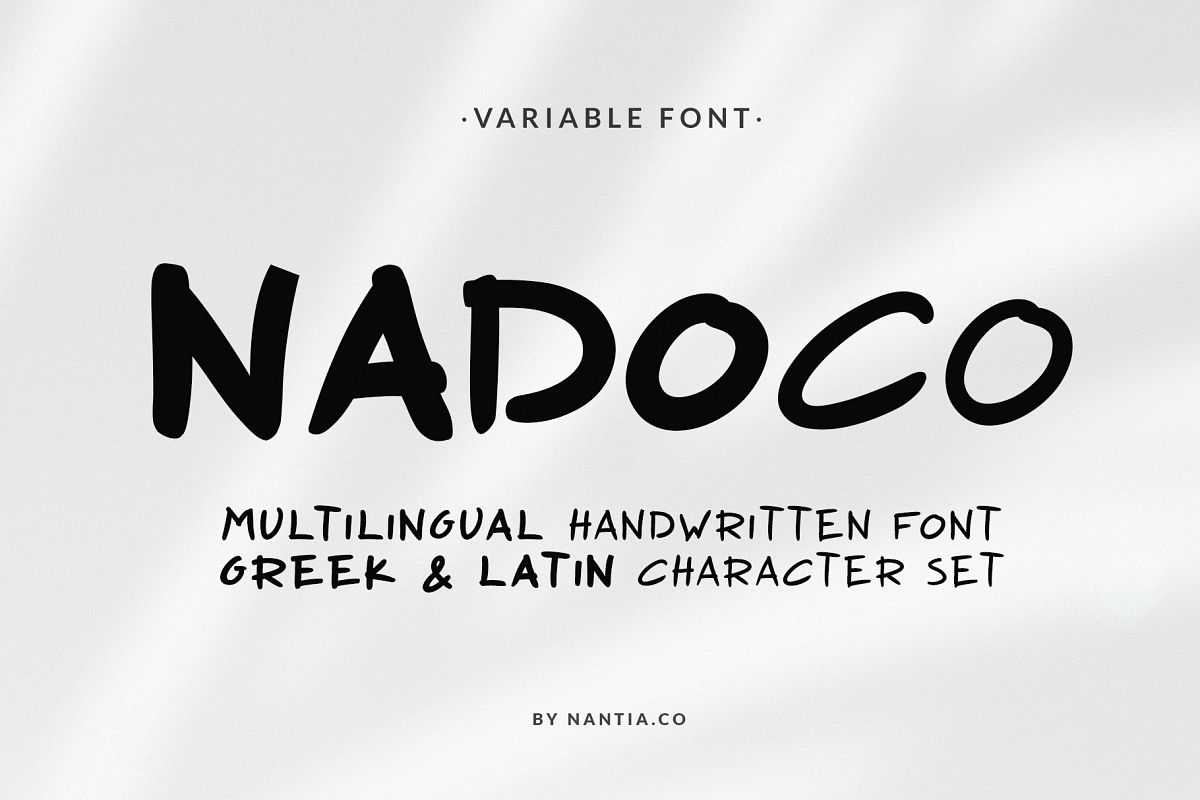
Nadoco Variable Handwritten Font
This font is an adorable hand-made variable font with five weights and a lot of personality. From "hand-written" quotes on Pinterest and Instagram to product packaging design, and food branding projects, this font is so versatile that it can cover them all.
• Extended Latin Characters
• Greek Characters
• Numerals
in five weights.
What is a variable font?
A variable font is a single font with many weight variations (or any other variations, like width or slant) enclosed in a single font file.